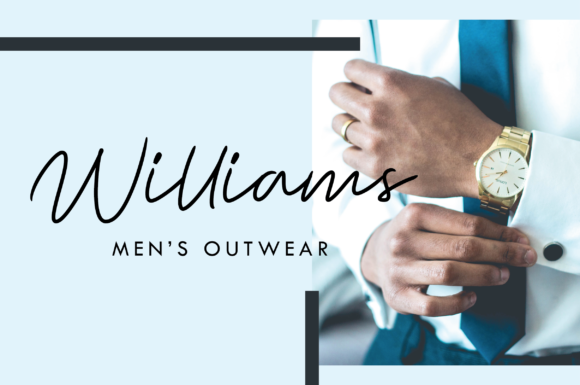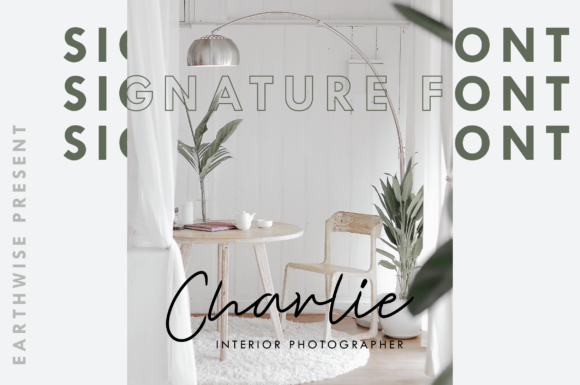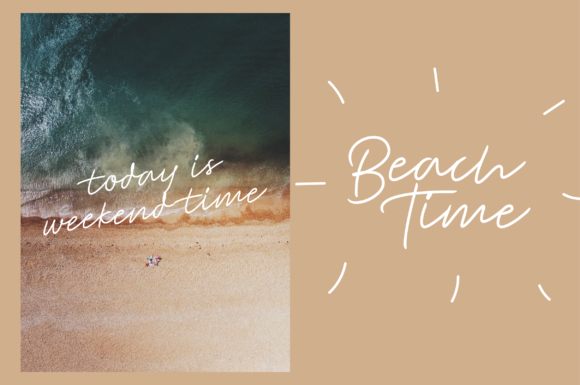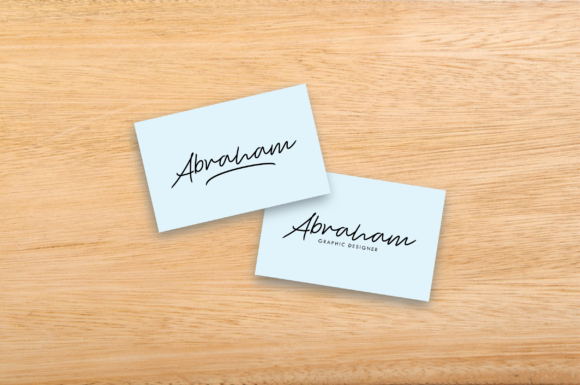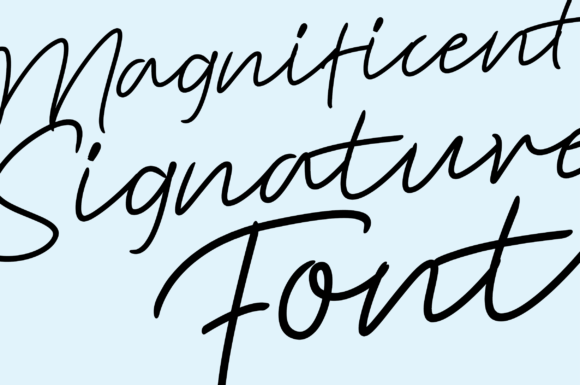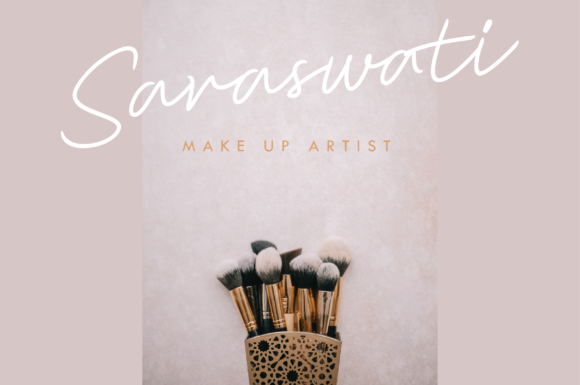
Introducing Earthwise Font: The Sweet and Authentic Script Font for All Occasions
Are you tired of using the same old fonts for your design projects? Look no further than Earthwise Font, a sweet and authentic script font that’s perfect for any occasion. Whether you’re a designer, crafter, or DIY enthusiast, Earthwise Font is sure to become your new go-to font.
What Makes Earthwise Font So Special?
Earthwise Font is a versatile script font that’s designed to be used in a variety of contexts. Its unique blend of elegance and playfulness makes it perfect for projects that require a personal touch. Here are just a few reasons why Earthwise Font stands out:
- Sweet and Authentic: Earthwise Font has a charming, handwritten quality that’s sure to capture the hearts of your audience. Its authentic feel makes it perfect for projects that require a personal touch.
- Extremely Versatile: Whether you’re designing a logo, creating a social media graphic, or crafting a handmade card, Earthwise Font works beautifully in any font occasion.
- Elegant yet Playful: Earthwise Font strikes the perfect balance between elegance and playfulness, making it suitable for a wide range of design projects.
Use Earthwise Font in Your Design Projects
Earthwise Font is perfect for a variety of design projects, including:
- Logos and Branding: Use Earthwise Font to create a unique and memorable logo that reflects your brand’s personality.
- Social Media Graphics: Add a personal touch to your social media graphics with Earthwise Font.
- Handmade Cards and Crafts: Earthwise Font is perfect for crafters who want to add a special touch to their handmade cards and projects.
- Wedding and Event Stationery: Use Earthwise Font to create beautiful wedding invitations, save-the-dates, and other event stationery.
Why Designers and Crafters Love Earthwise Font
Earthwise Font has quickly become a favorite among designers and crafters, and for good reason. Here are just a few reasons why:
- Easy to Read: Earthwise Font is clear and easy to read, making it perfect for projects that require a lot of text.
- Highly Versatile: Earthwise Font works beautifully in a variety of contexts, from digital designs to handmade crafts.
- Unique and Authentic: Earthwise Font has a unique, handwritten quality that’s sure to make your projects stand out.
Get Creative with Earthwise Font
Ready to get creative with Earthwise Font? Here are a few tips to help you get started:
- Experiment with Colors: Earthwise Font looks beautiful in a variety of colors, so don’t be afraid to experiment and find the perfect hue for your project.
- Mix and Match: Combine Earthwise Font with other fonts to create a unique and eye-catching design.
- Add Embellishments: Add embellishments, such as flowers or leaves, to give your project a personal touch.
Earthwise Font is a sweet and authentic script font that’s perfect for designers, crafters, and DIY enthusiasts. Its unique blend of elegance and playfulness makes it versatile and easy to use in a variety of contexts. Whether you’re creating a logo, social media graphic, or handmade card, Earthwise Font is sure to become your new go-to font.